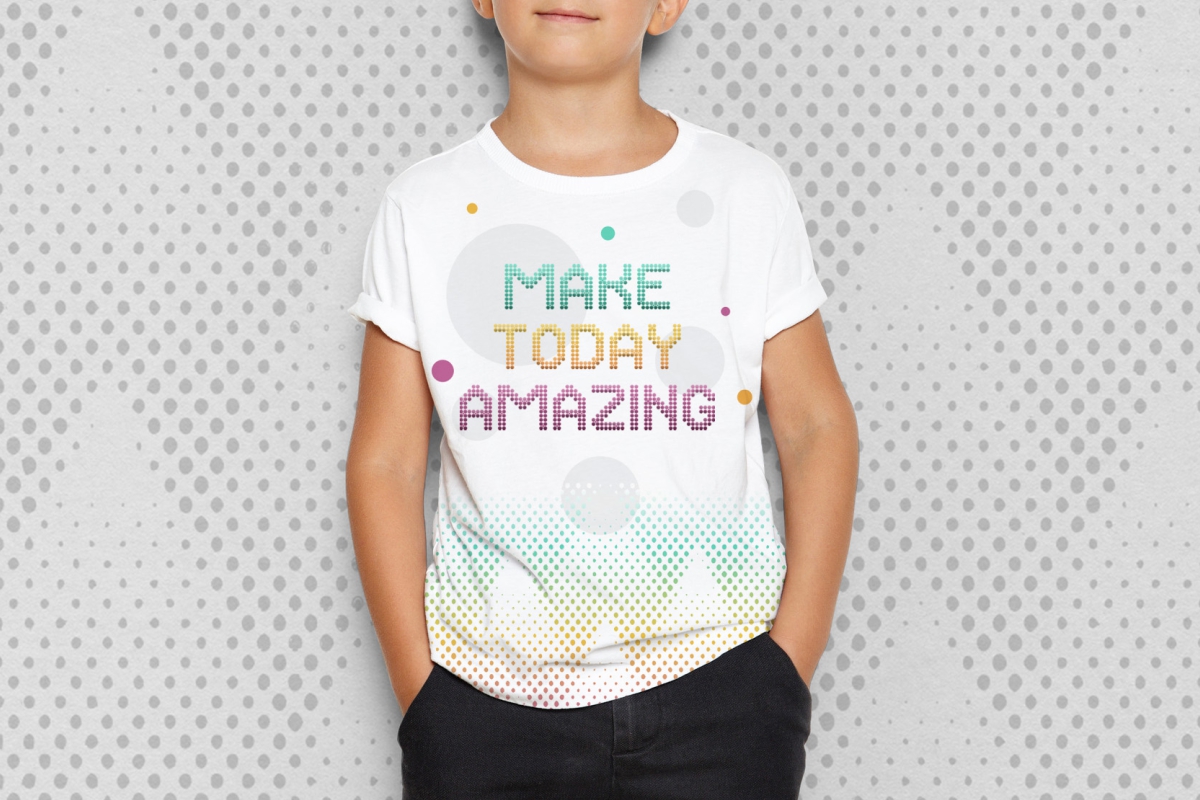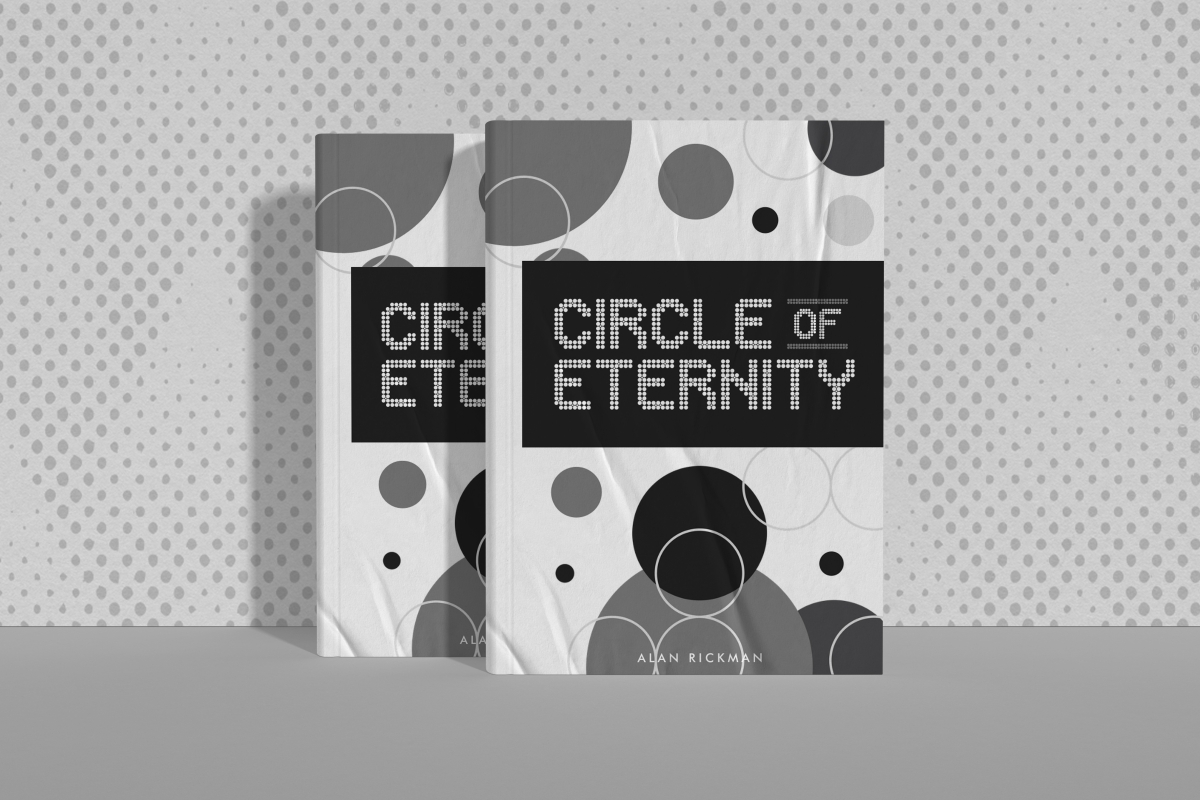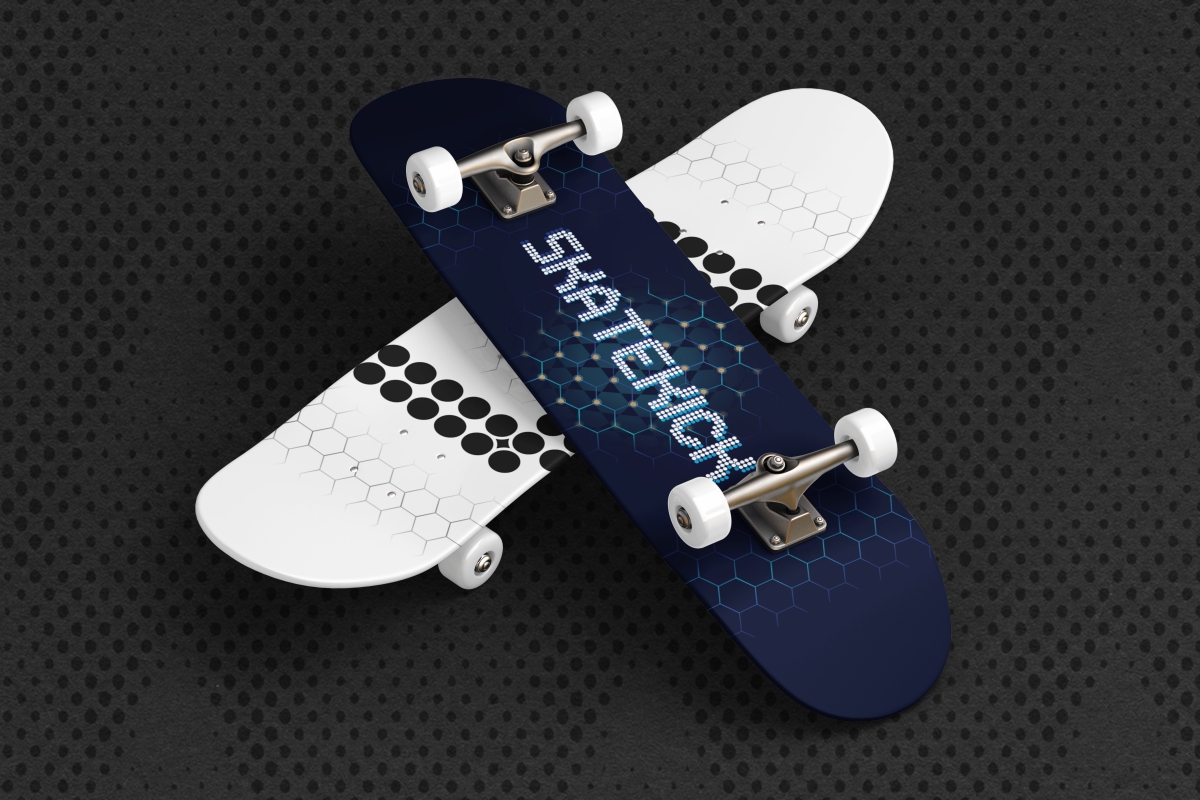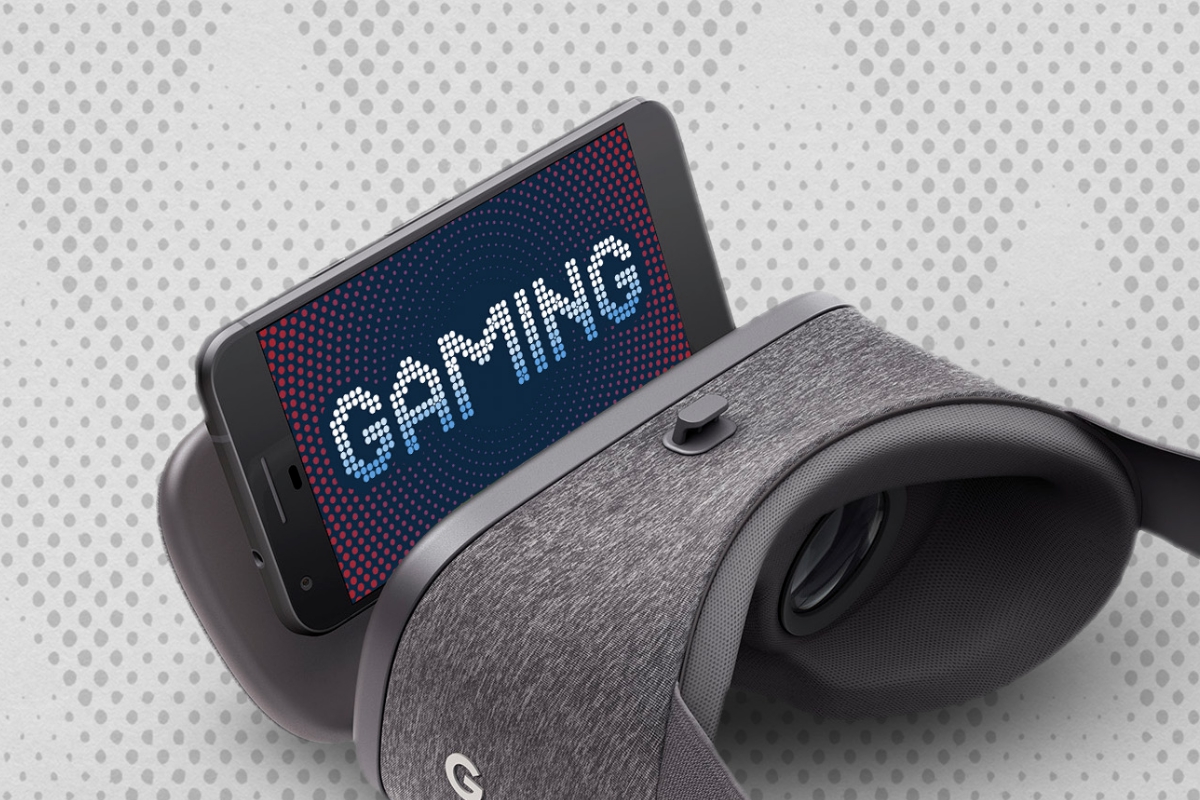
Many Dots Font
Many Dots Display Font
This is a retro games display font. It can be the perfect for vintage vibes, video games, retro style or even a technology related designs. The limitation is our imagination. Many Dots Font will be perfect for headers (especially for large ones), or it can be used for small blocks of text too. This typeface is perfect for logos, titles, apparel, title headers, posters, merchandise, labels, branding and much more.